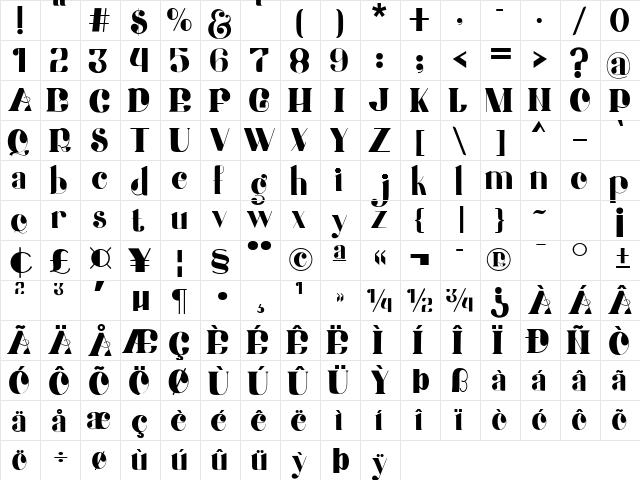
Honey Batterfly Regular
| Designer | Abu Rumaisha Doni |
Design Context for Honey Batterfly Typeface
Honey Batterfly is a composed and adaptable typeface that performs quietly and consistently across a wide range of design contexts.